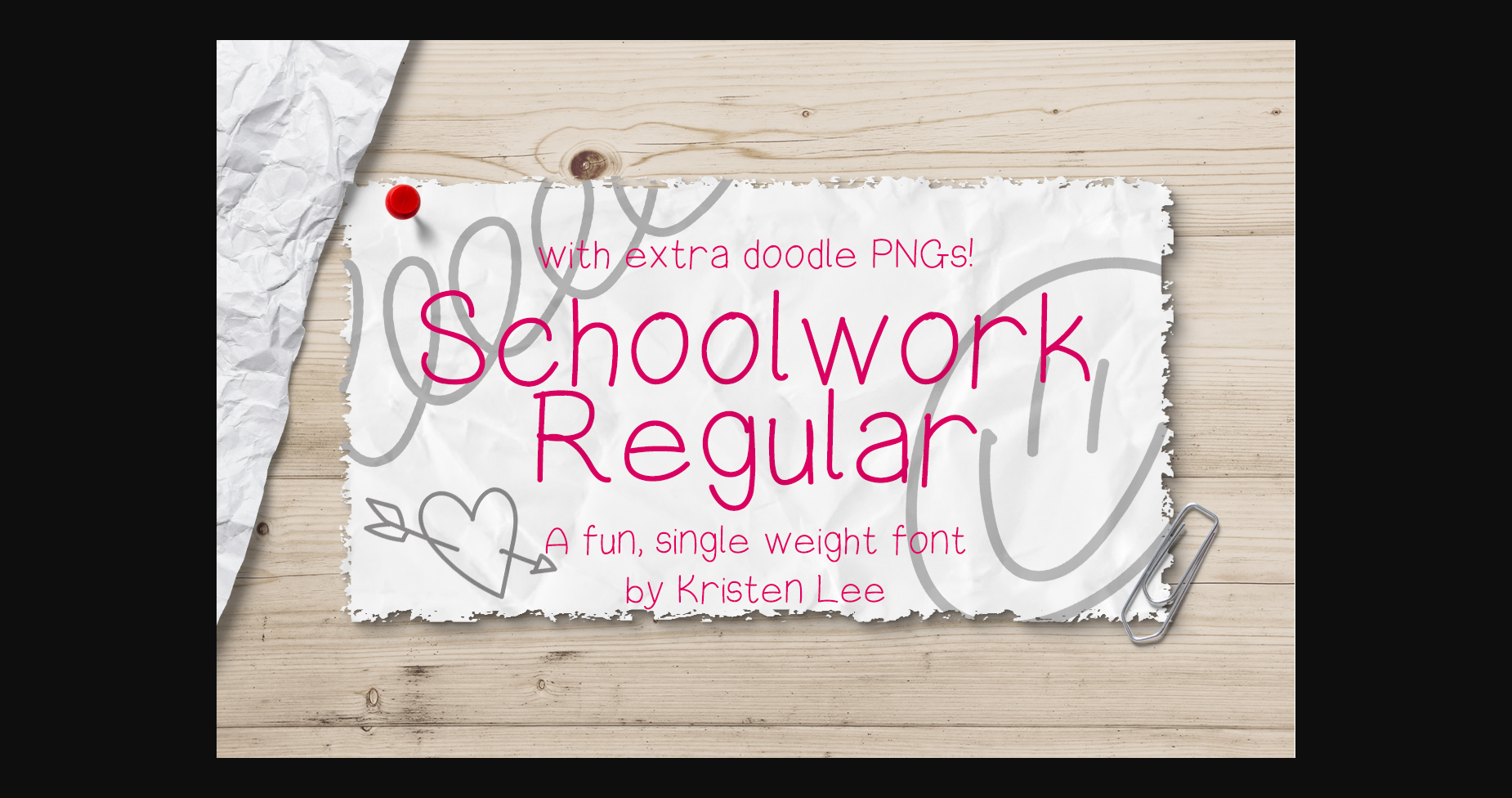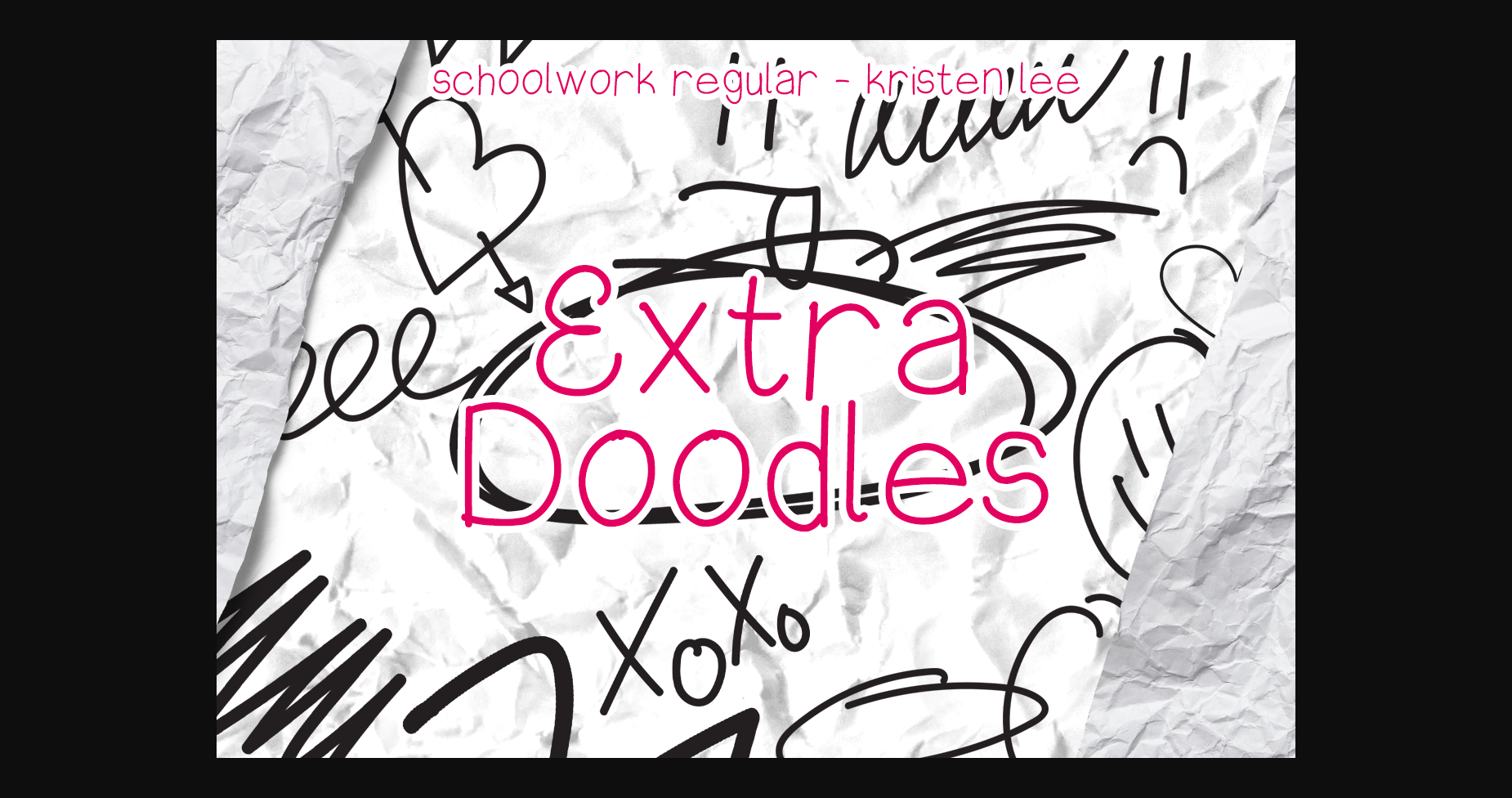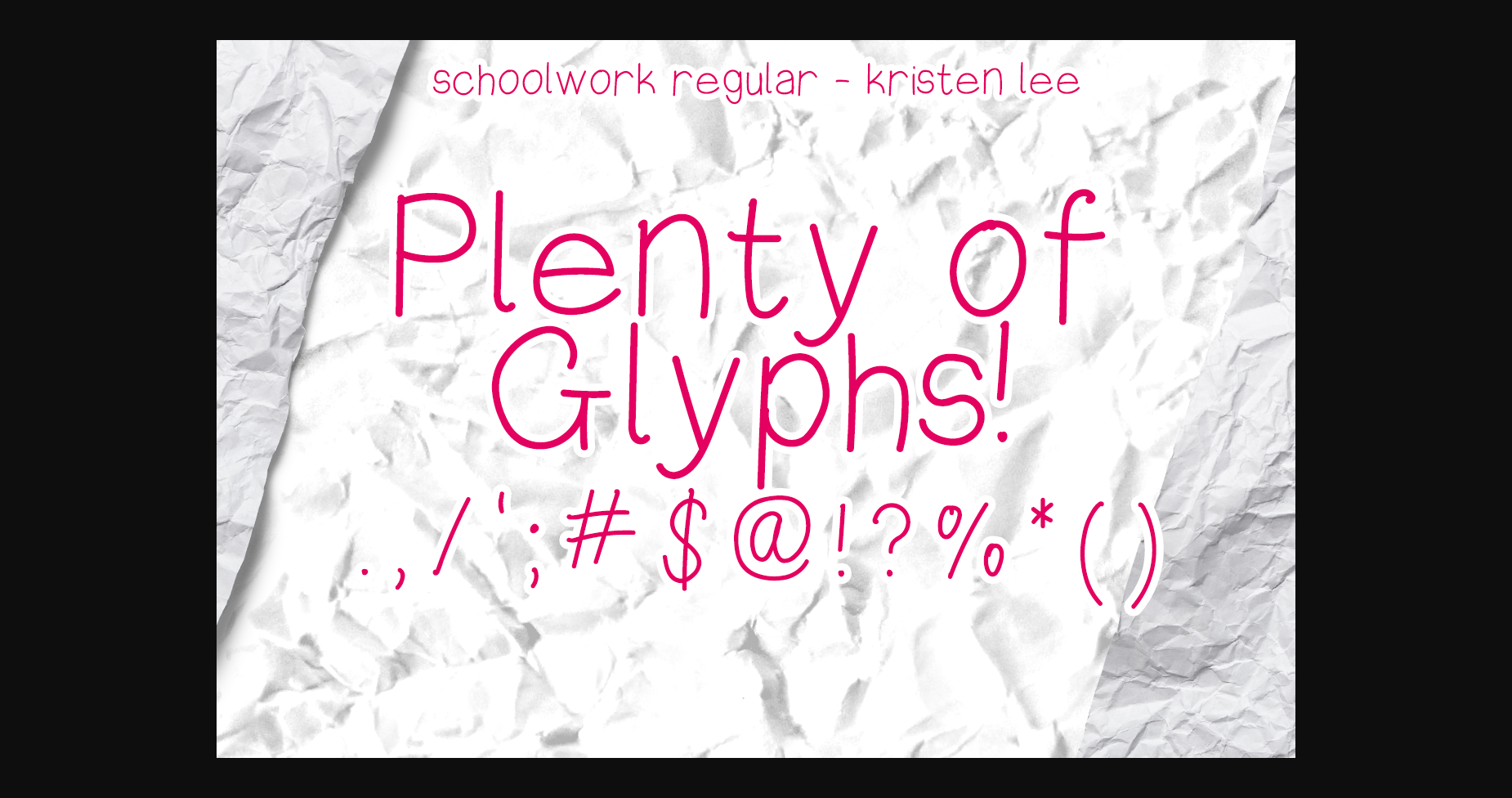
About Schoolwork Font
Bursting with personality and fun, Schoolwork is an exciting, youthful typeface with high readability that’s absolutely perfect for invites, journalling, web design, and more! This lovely font comes with fifteen additional PNG doodles to help bring some child-like fun to your designs.